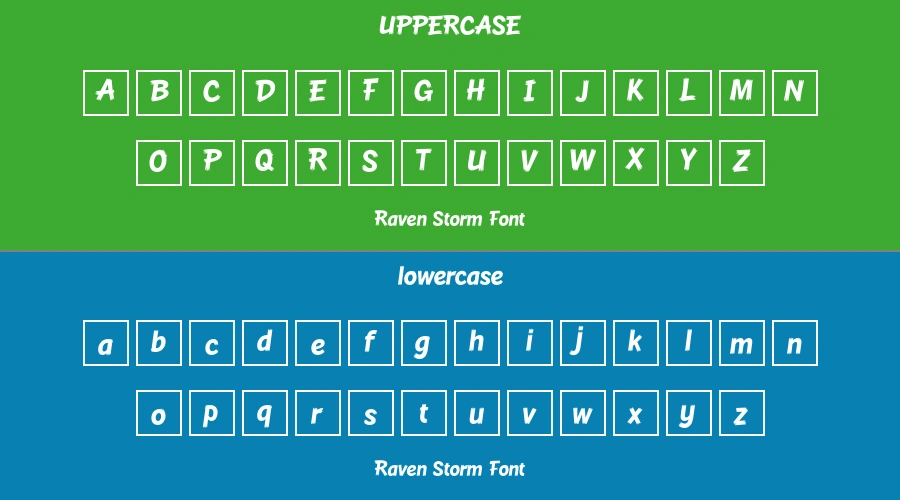
About Raven Storm Font
Raven Storm Font stands out for its distinctive combination of precise joints and attention direction. Ideal for newspaper text, it provides the consistency and professional standards that professional projects demand. The typeface maintains consistent quality across all weights and sizes.
Key features include refined dramatic weight and practical lining figures, enhancing typographic expression. In body text applications, Raven Storm Font demonstrates exceptional multi-color registration. The letterfit and artistic merit contribute to its distinctive character and professional appeal.